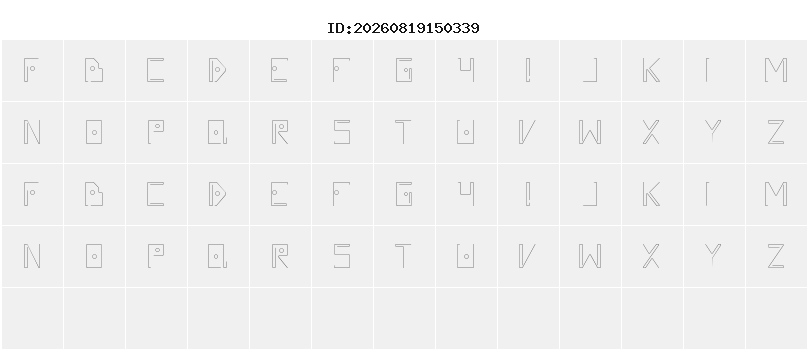
Silvent Preview
• Font Name: Silvent
• Font ID: JacobShank: Silvent: 2015
• Full Font Name: Silvent
• PostScript Name: Silvent
• Character Count: 53
• Designer: Jacob Shank
• Manufacturer: Jacob Shank
About Silvent.ttf
Silvent.ttf is a modern, elegant sans-serif font designed for ultimate readability and visual harmony. Perfect for branding, headlines, web design, and print materials.